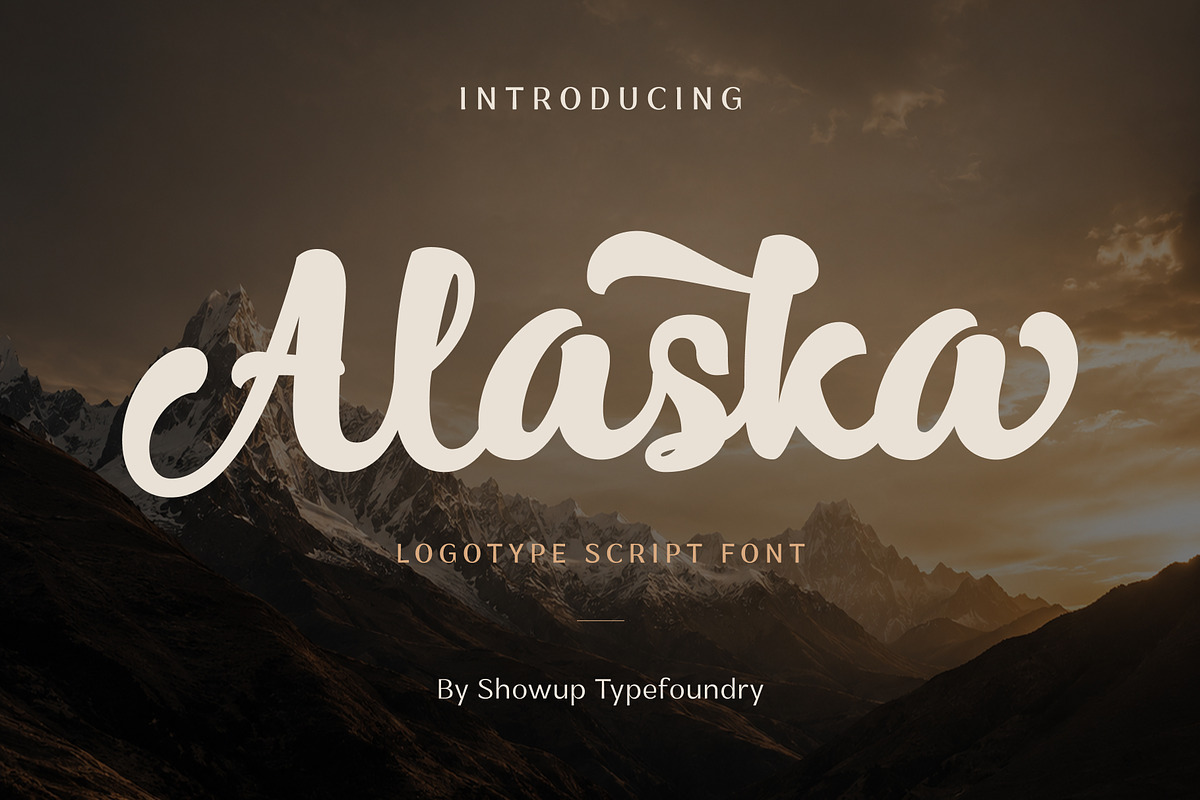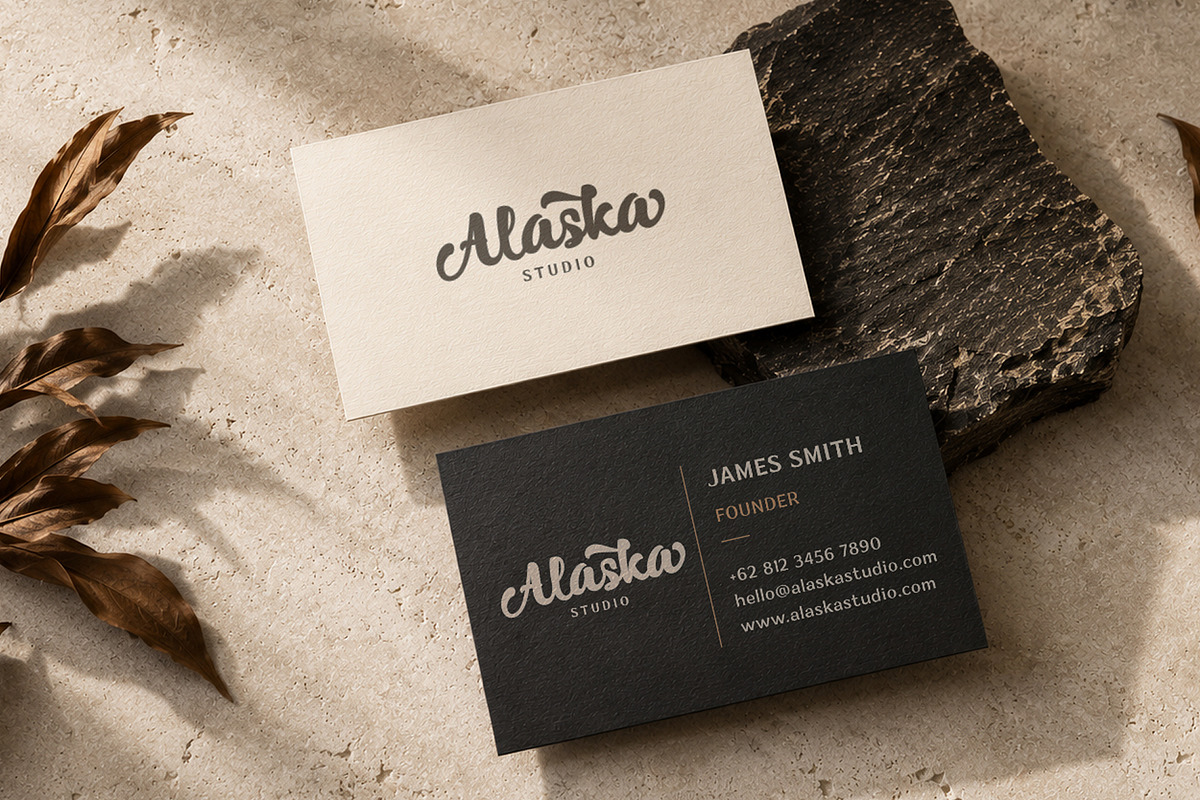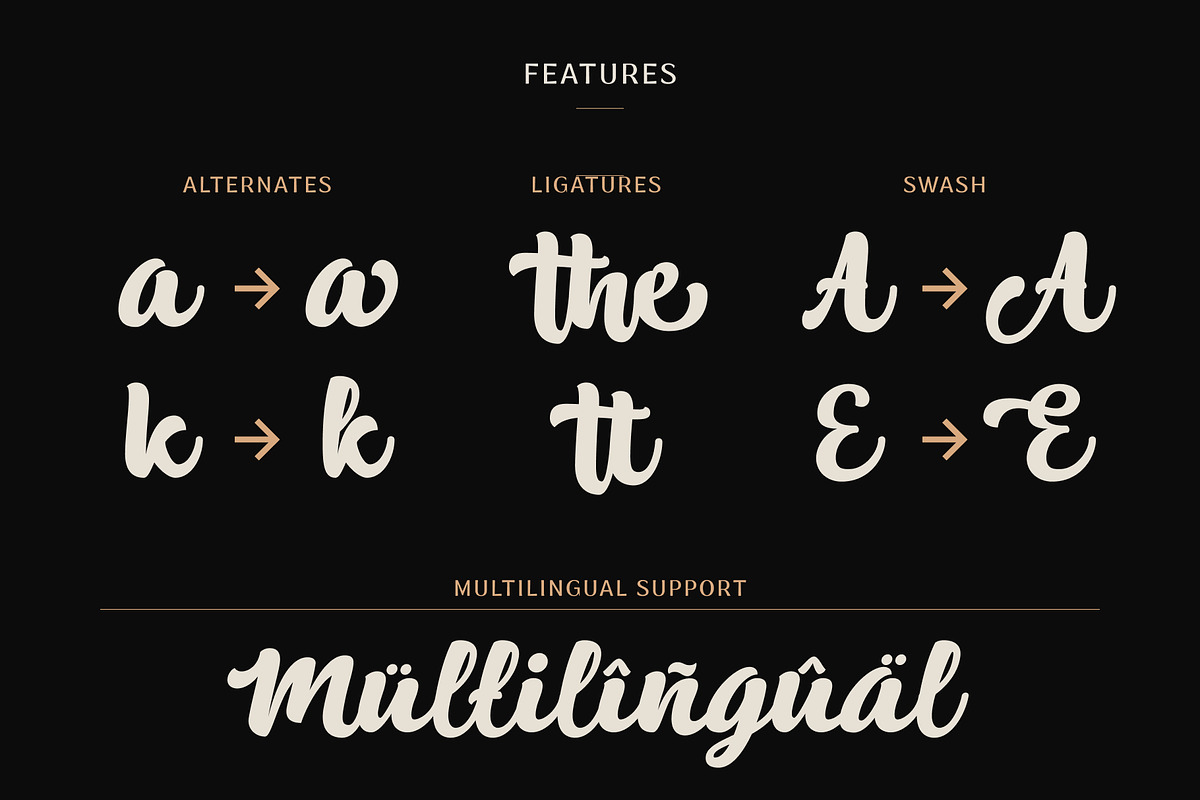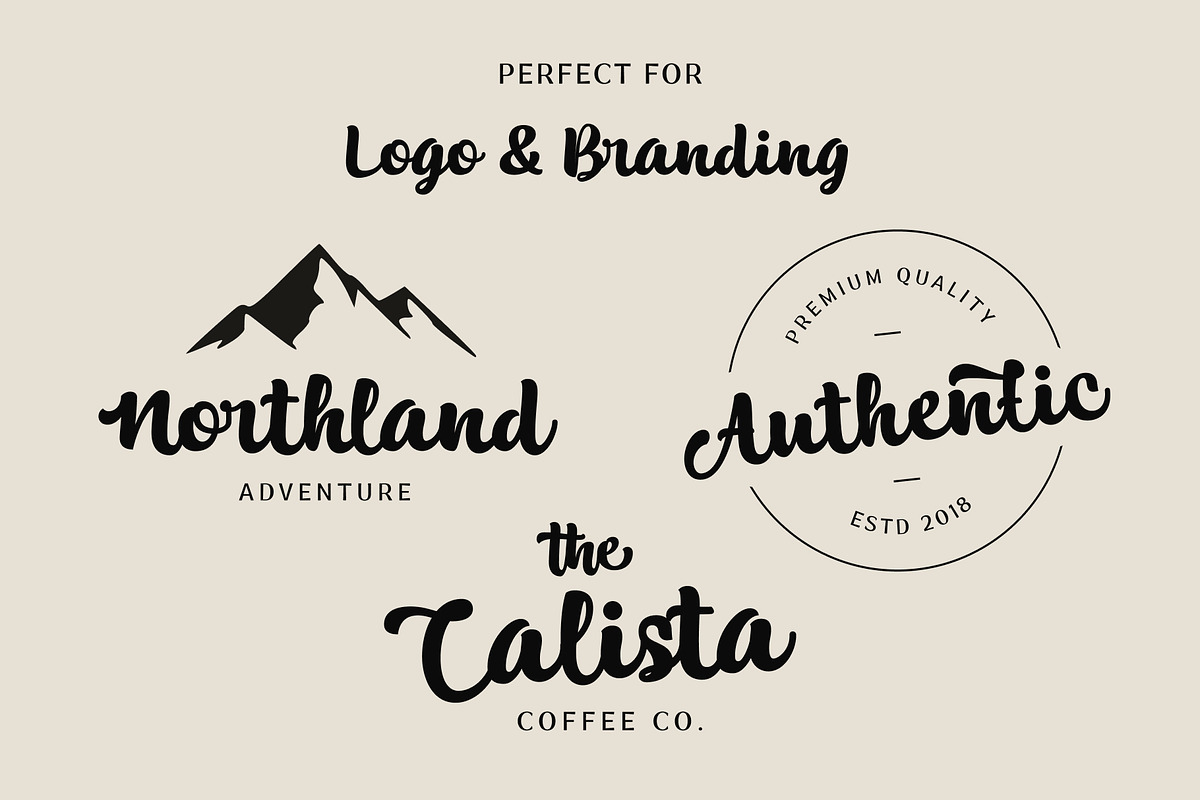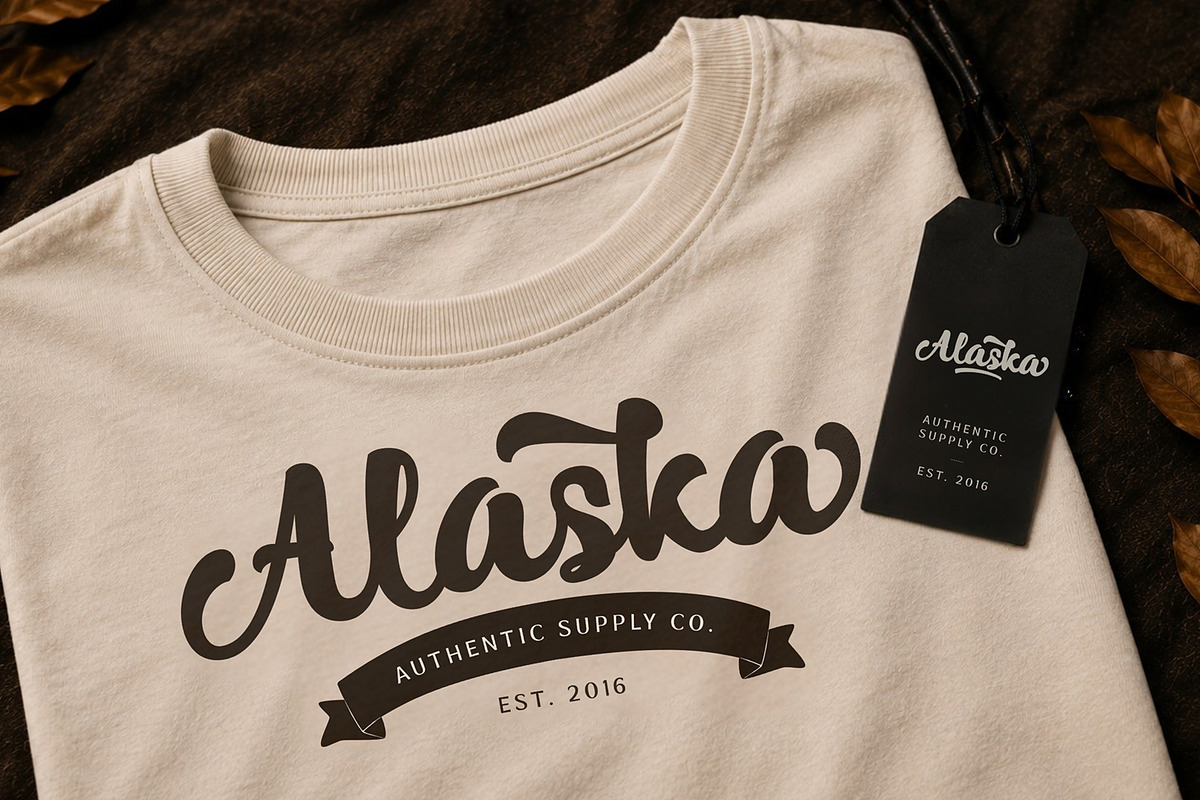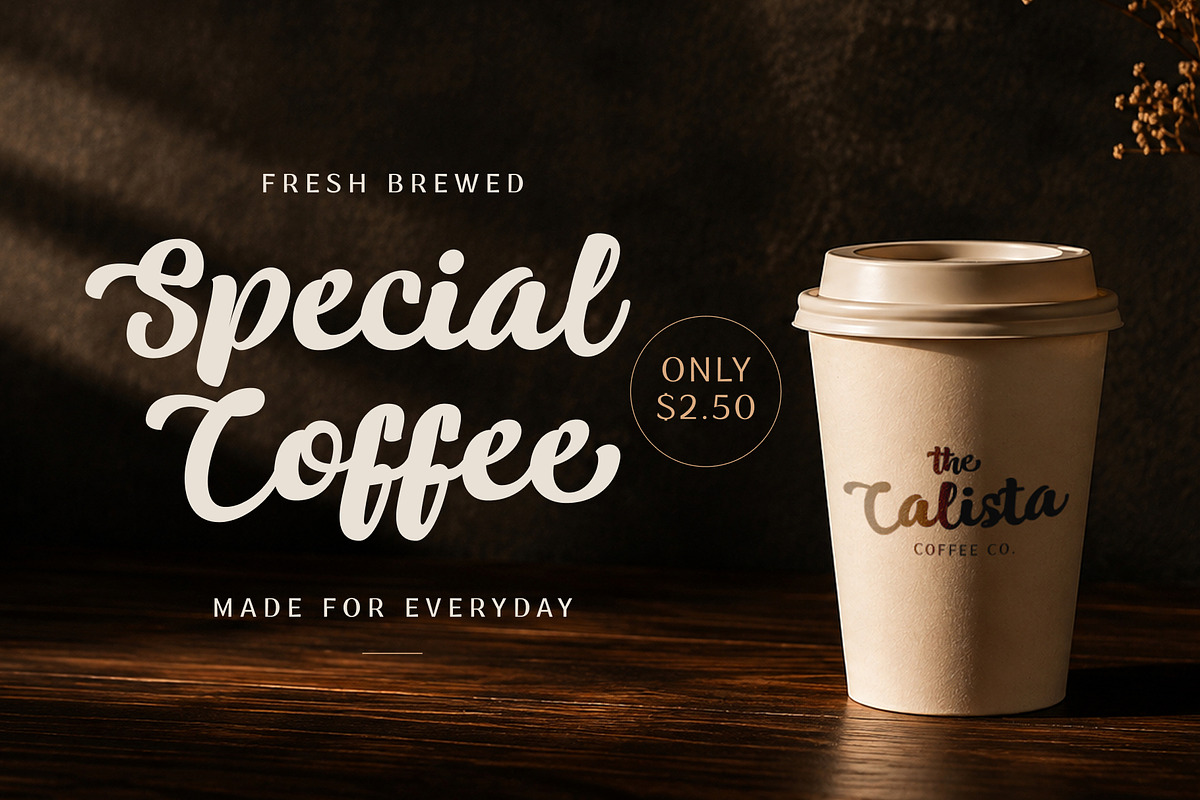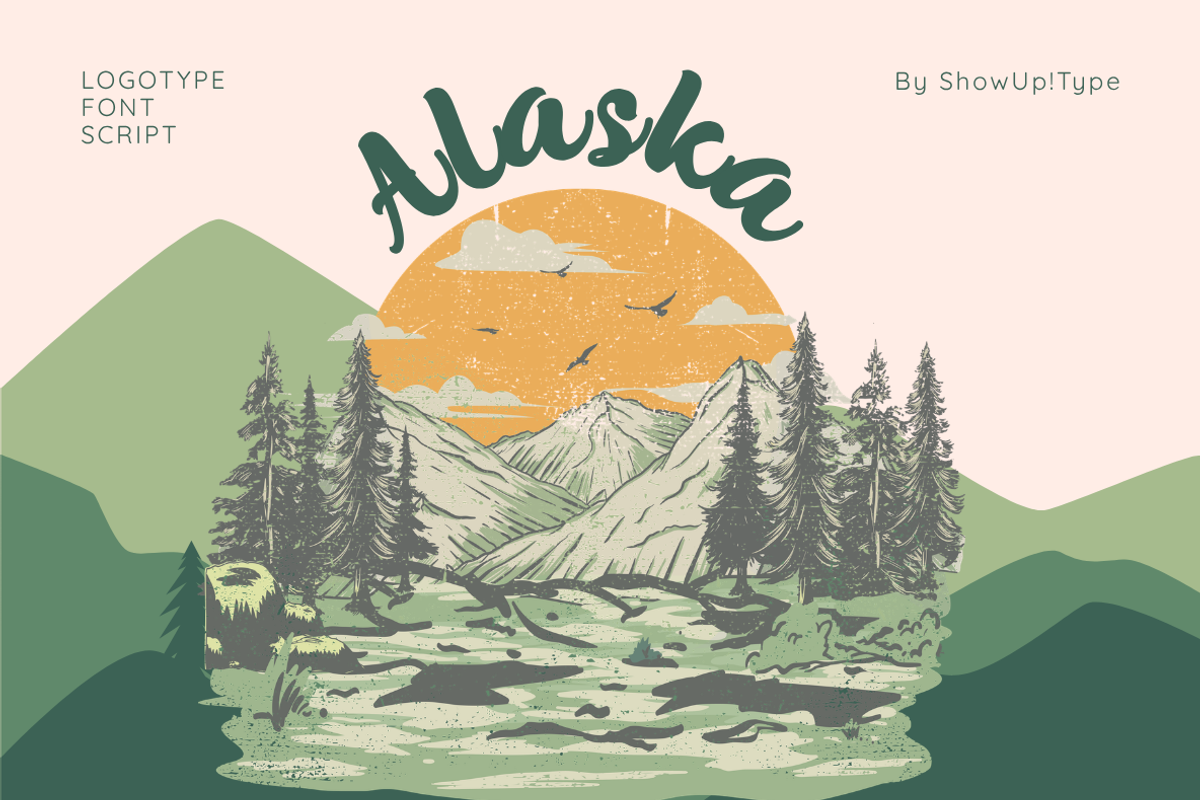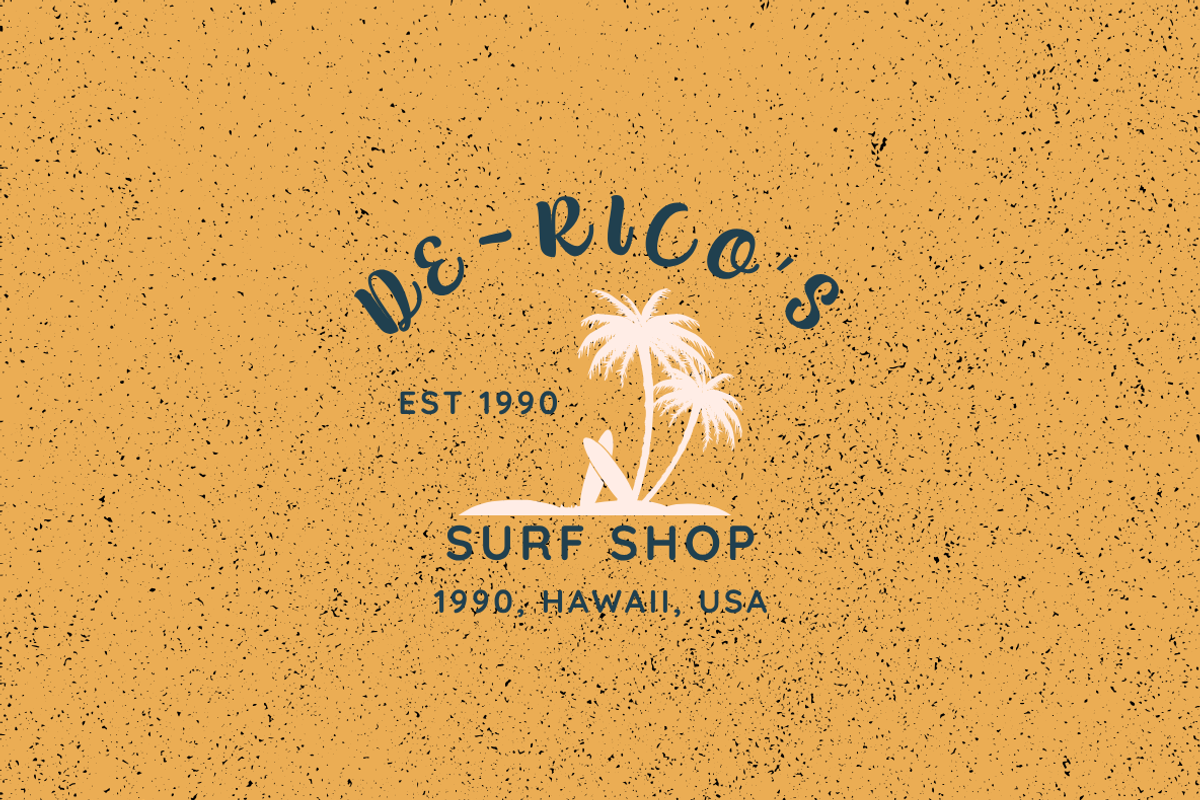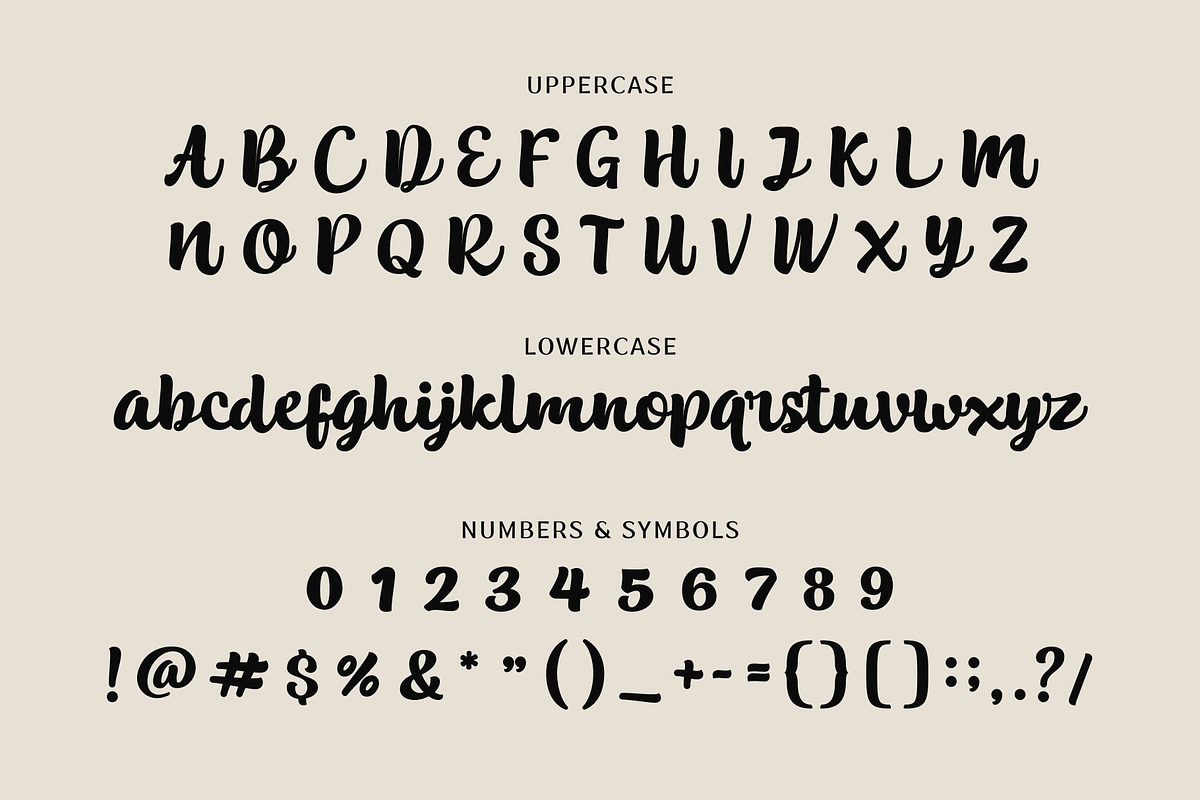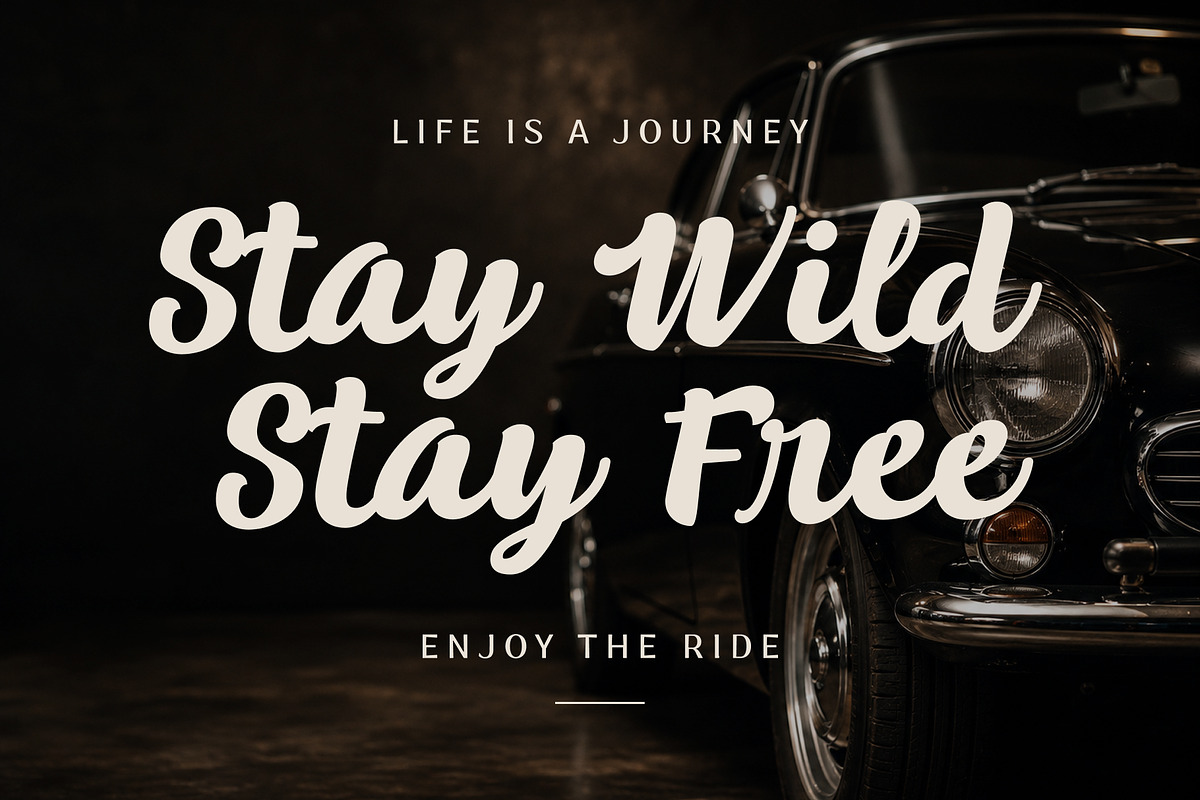
Alaska
Alaska – Modern Script Logo Font
Introducing Alaska, a modern script font with smooth curves and elegant handwritten strokes. Designed to create clean, memorable typography, Alaska combines the charm of natural lettering with a contemporary style, making it an excellent choice for branding and logo design.
Its balanced letterforms and flowing connections make Alaska versatile enough for both professional and creative projects. Whether you're building a premium brand, designing product packaging, or creating beautiful social media graphics, Alaska delivers a stylish and authentic handwritten look.
Logos & Branding
Fashion Brands
Beauty & Cosmetics
Business Cards
Wedding Invitations
Photography Watermarks
Quotes
Editorial Design
Smooth Modern Script Style
Beautiful Ligatures